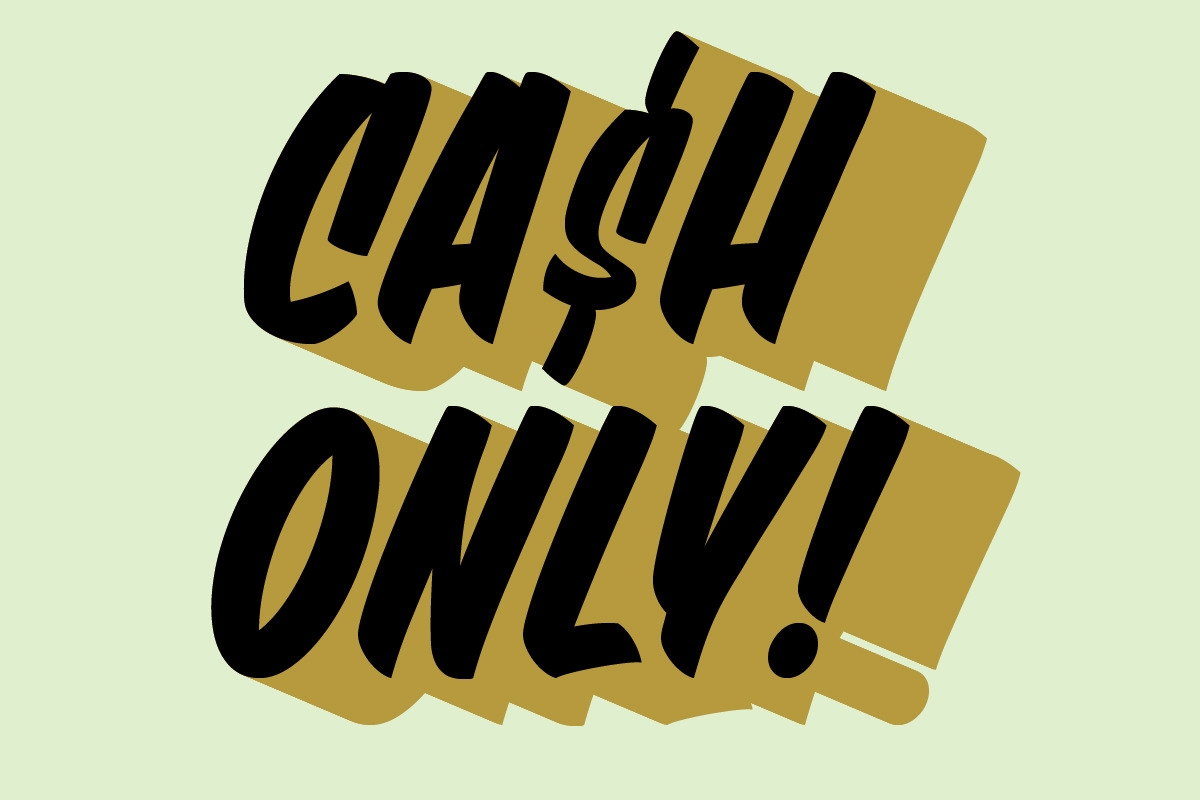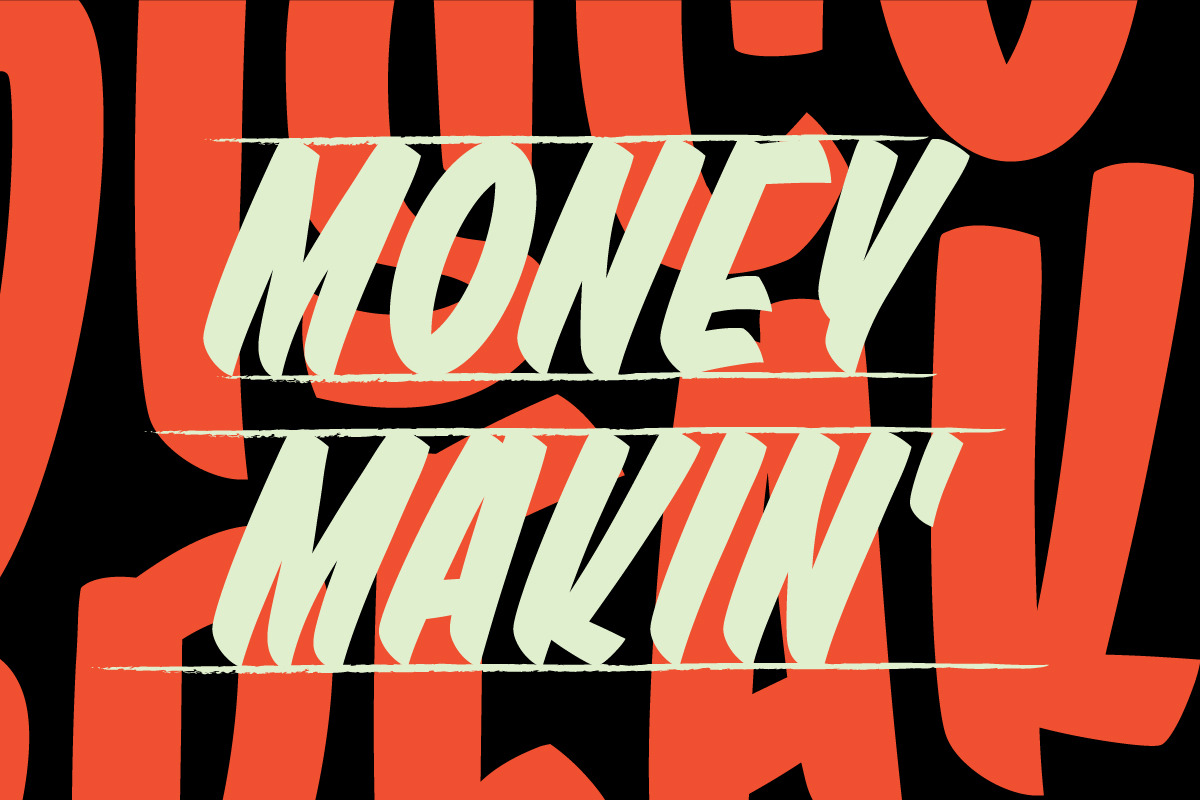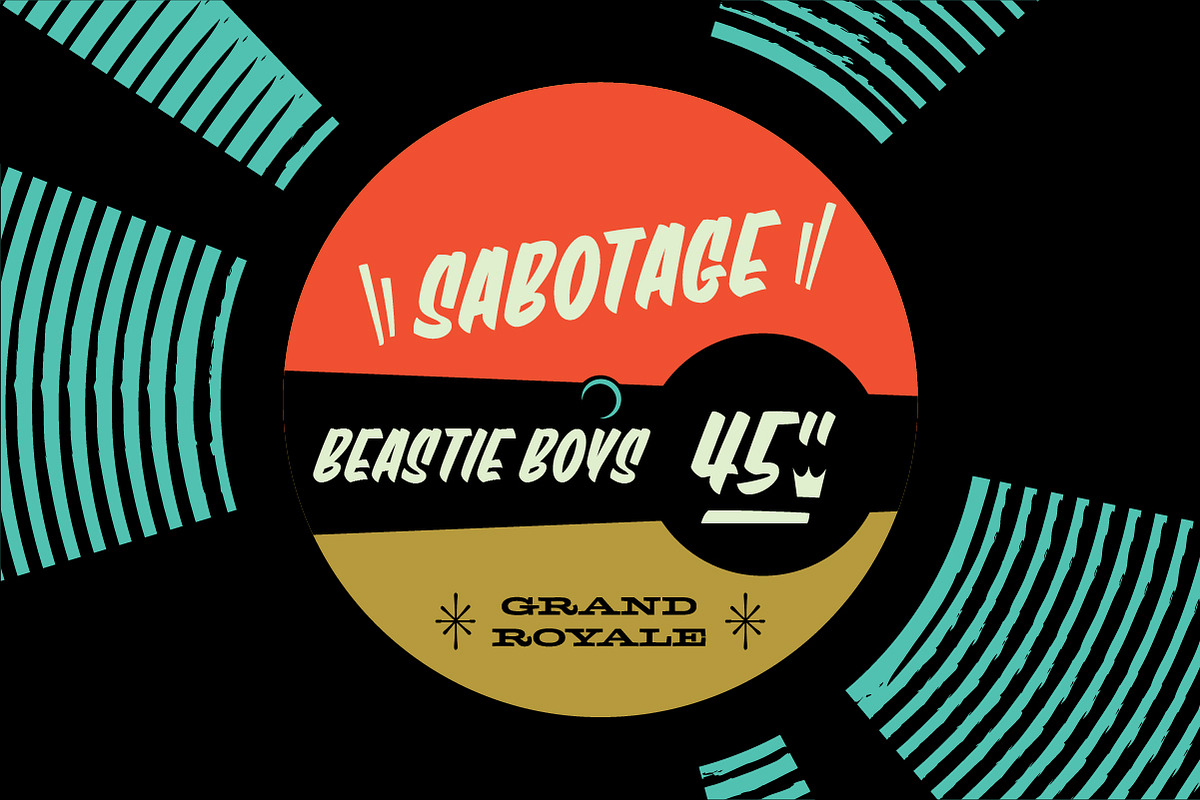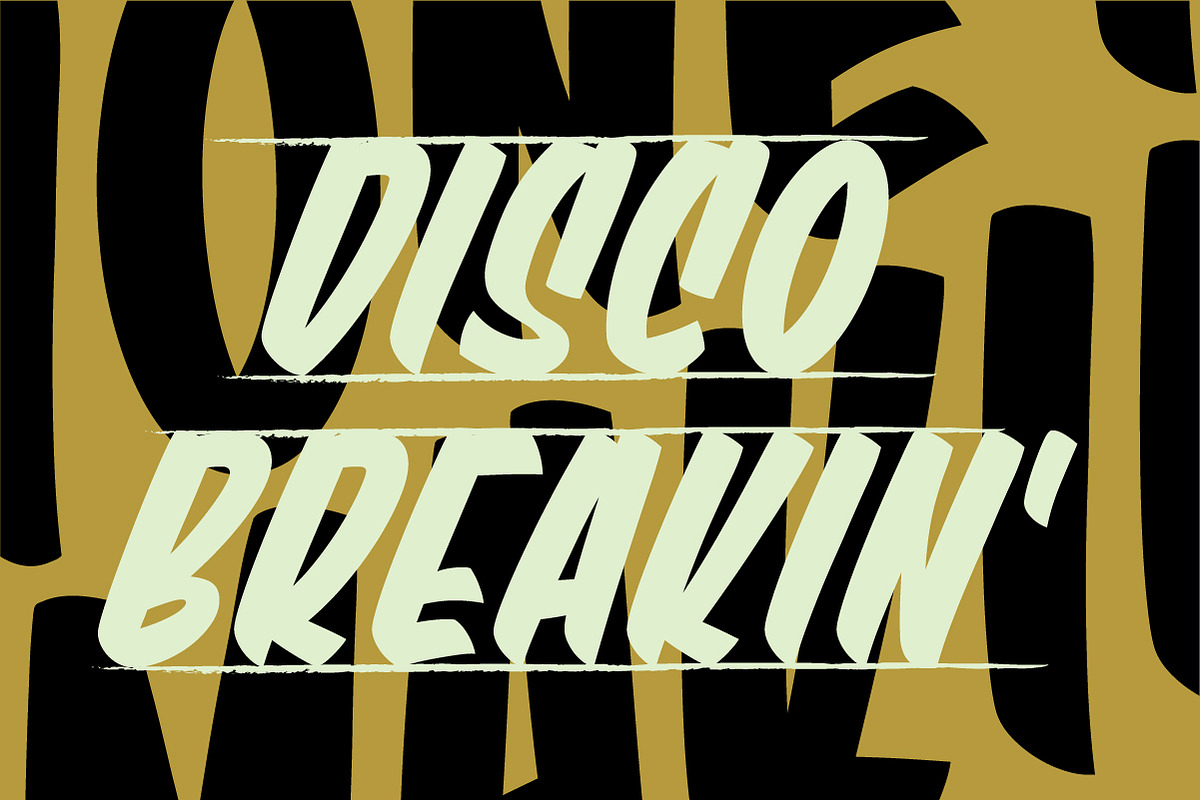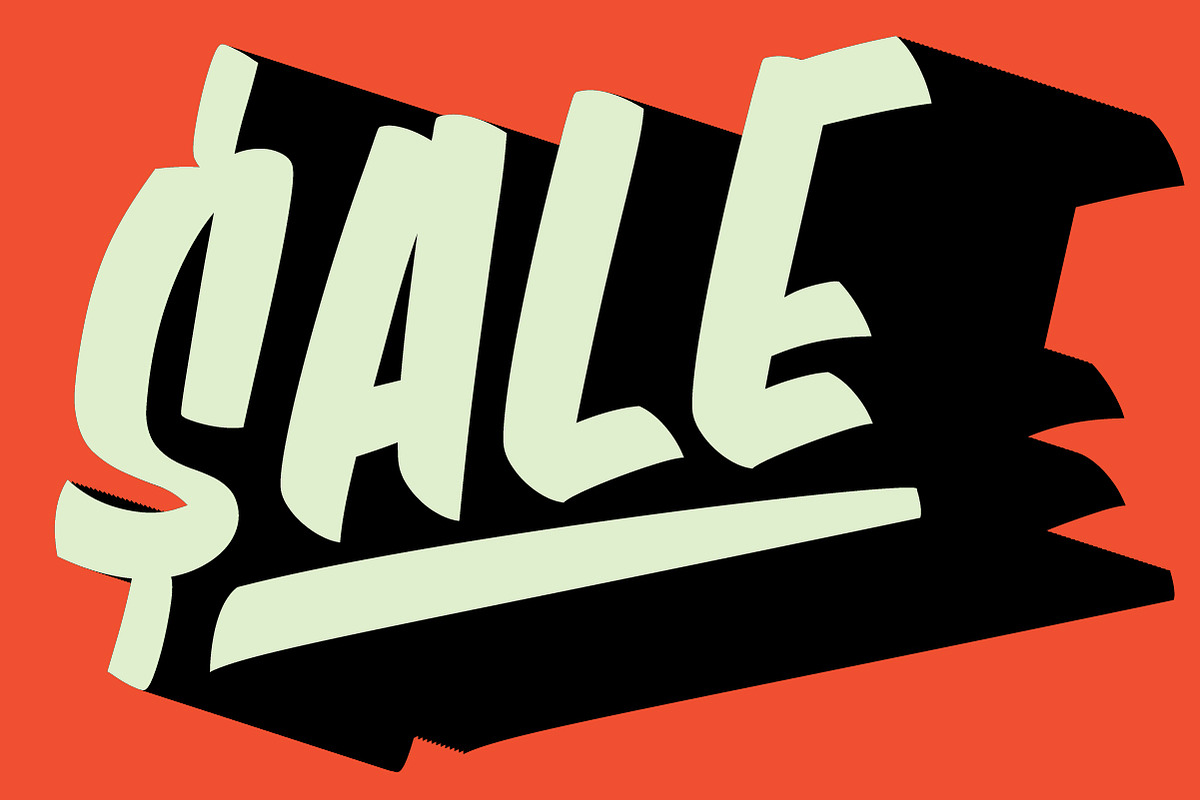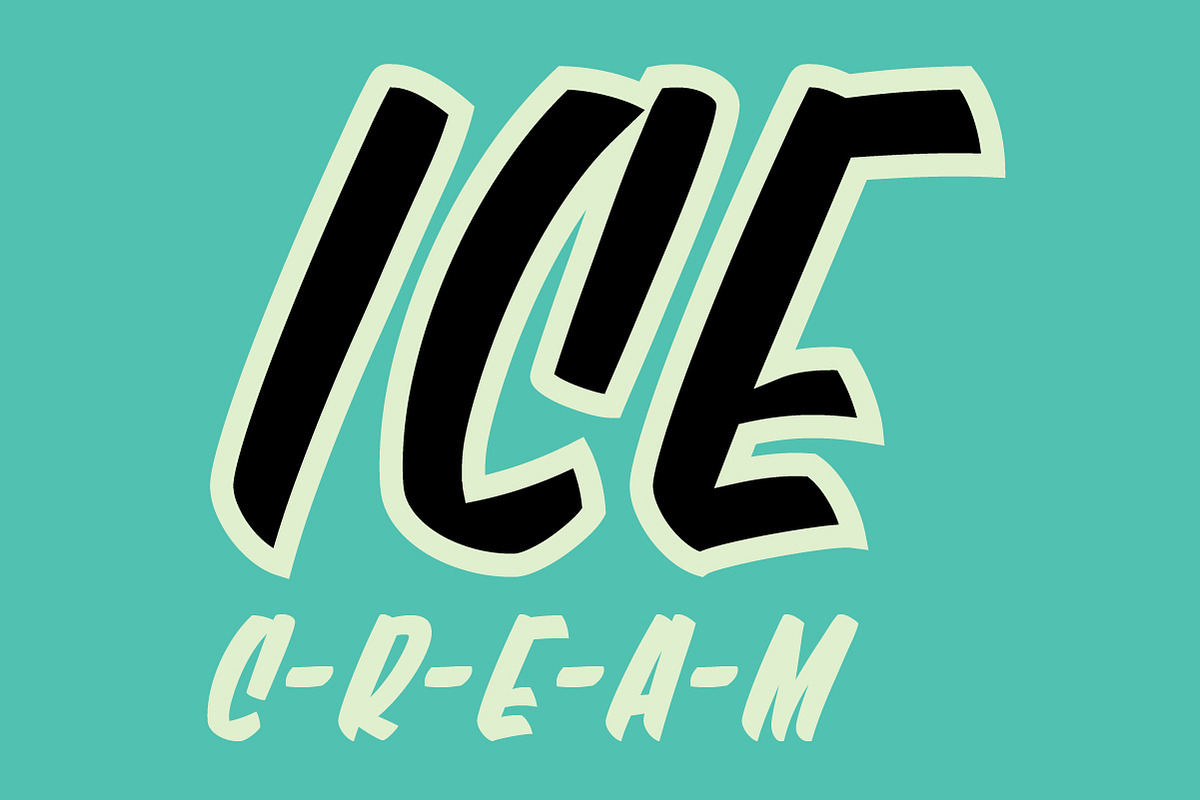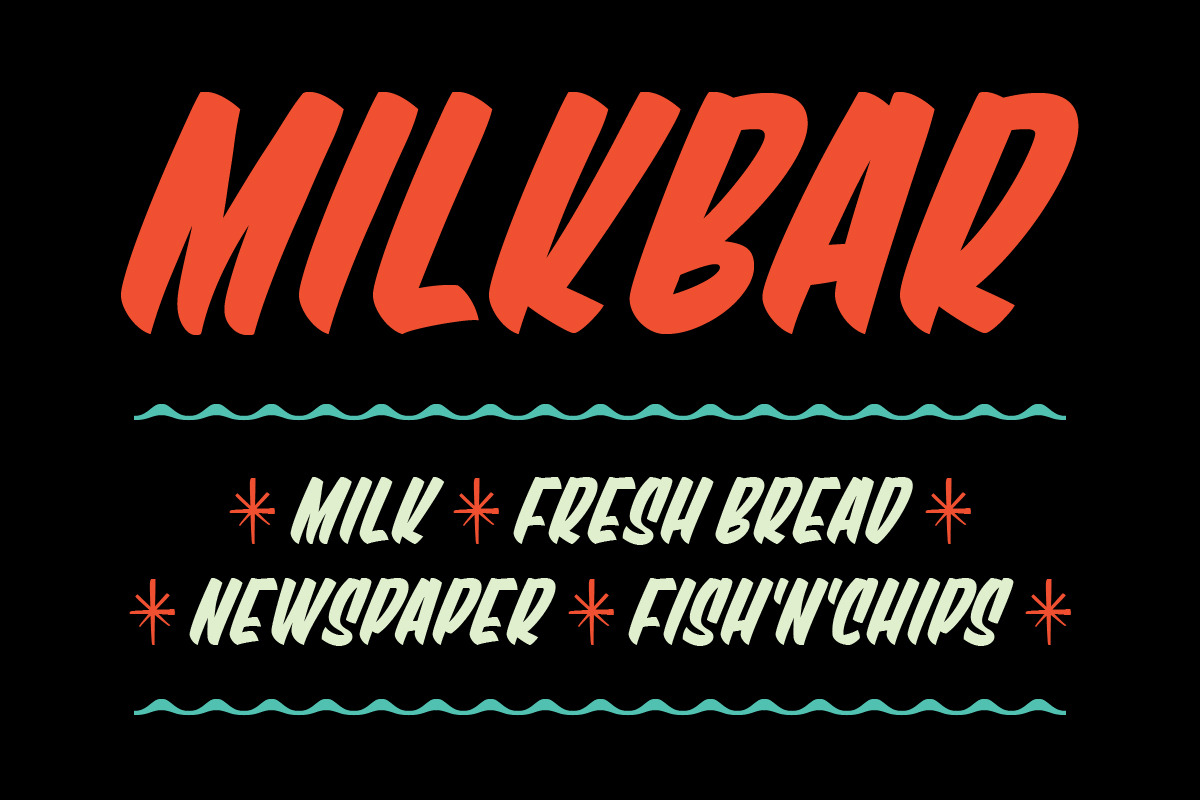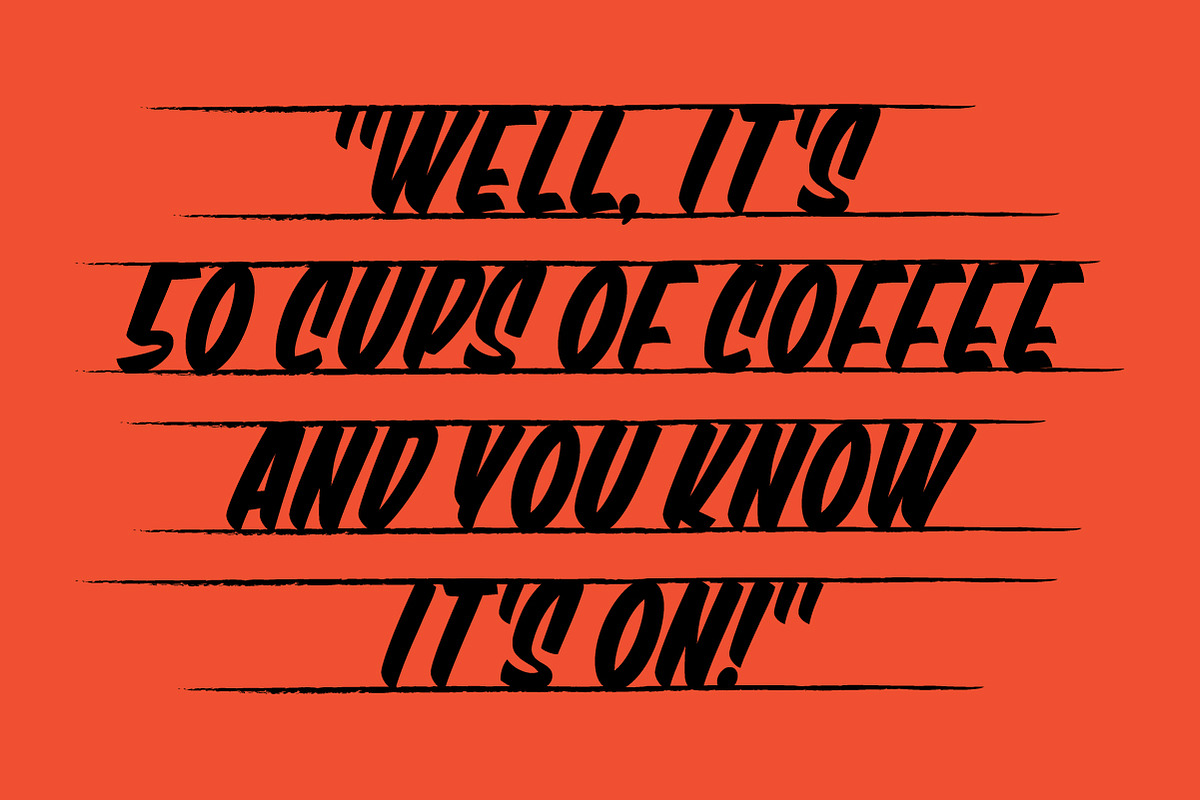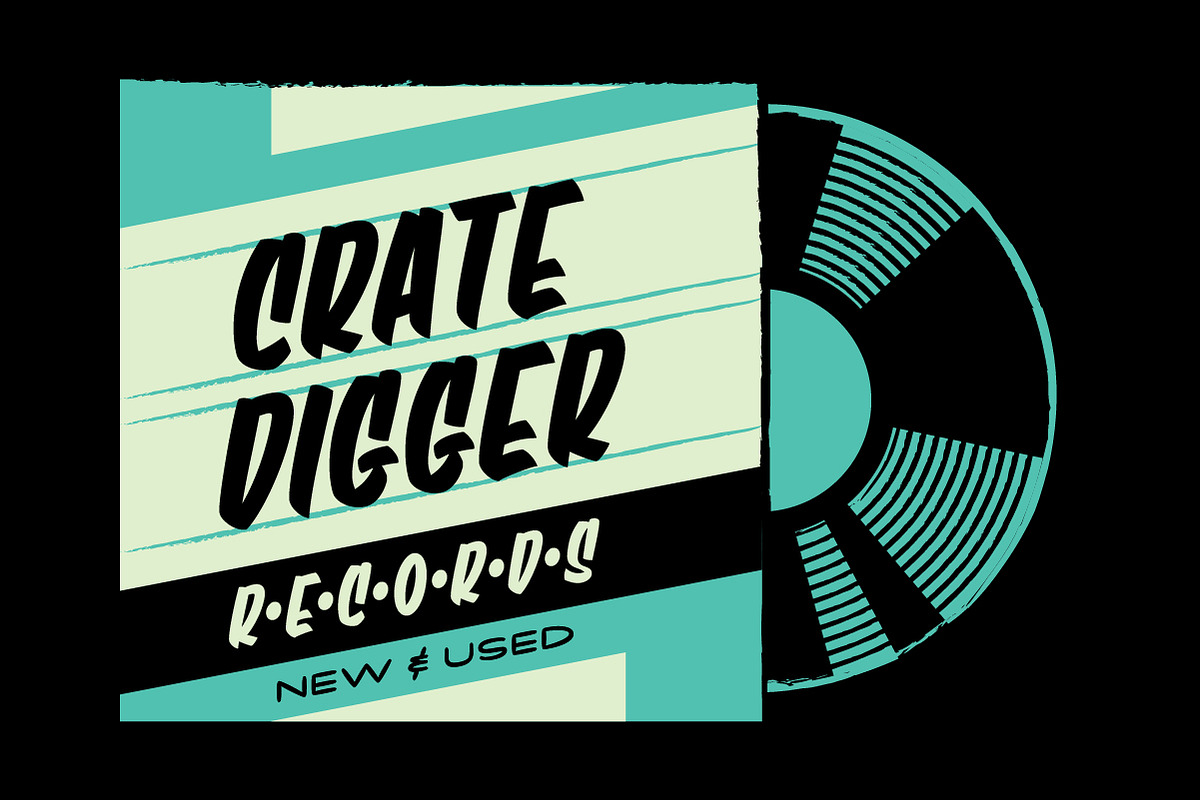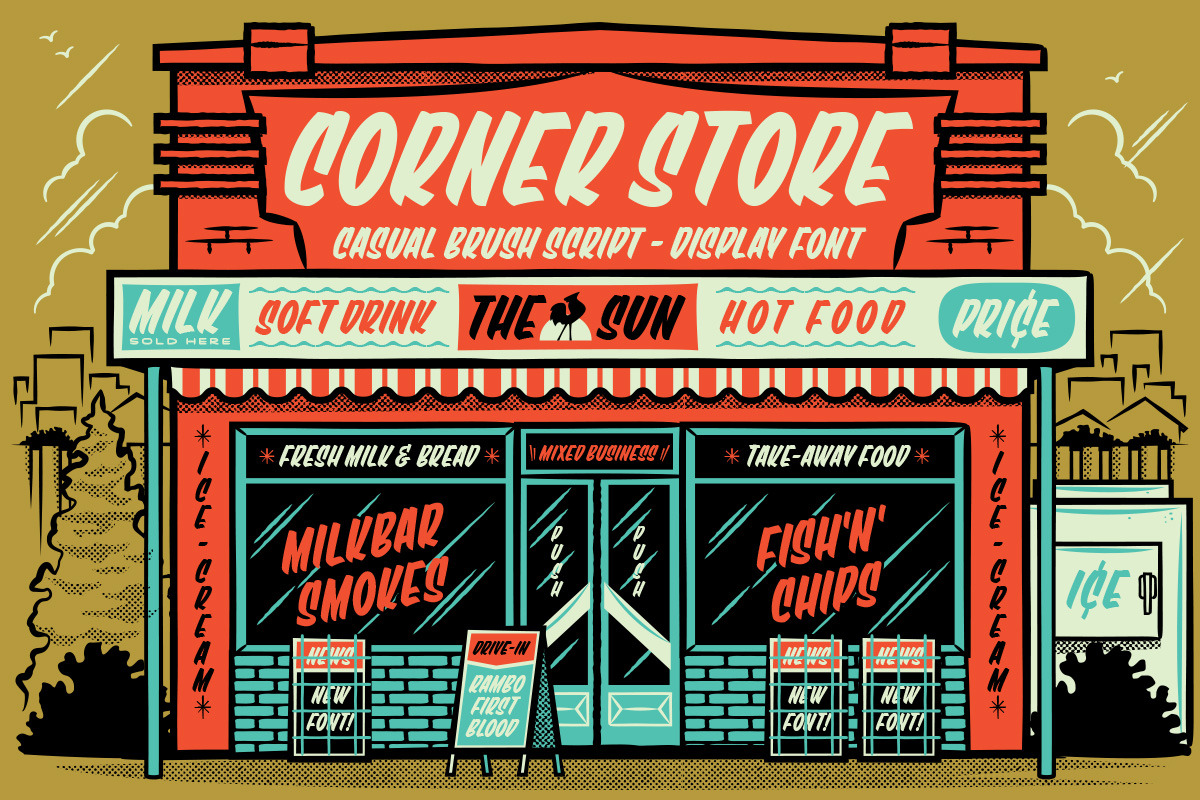
Corner Store Casual Brush Script
Corner Store takes you back to a time when the life was a little more simple. It's a casual brush script that channels the spirit of those hand-painted sales signs you’d find at your local neighbourhood corner store as a kid—that screamed of fresh produce, killer deals, and the local butcher's best cuts.
Perfectly imperfect, Corner Store is ideal for branding, posters, packaging, or any project that needs an old-school aesthetic.